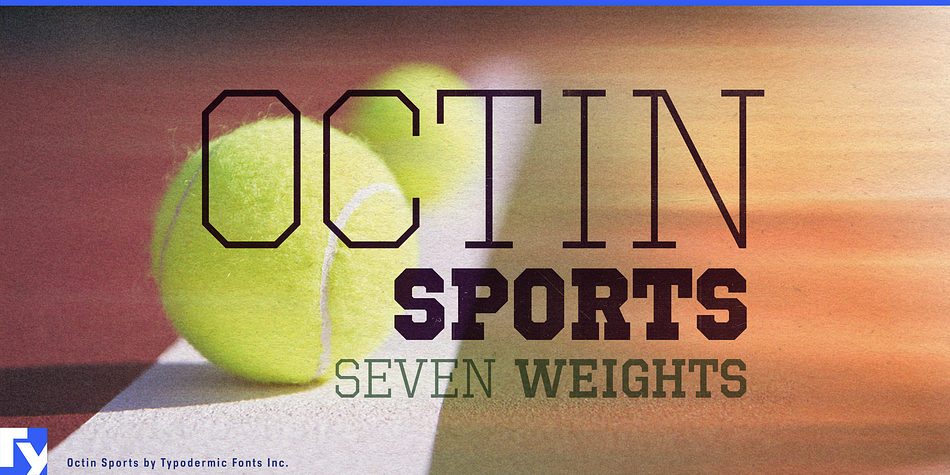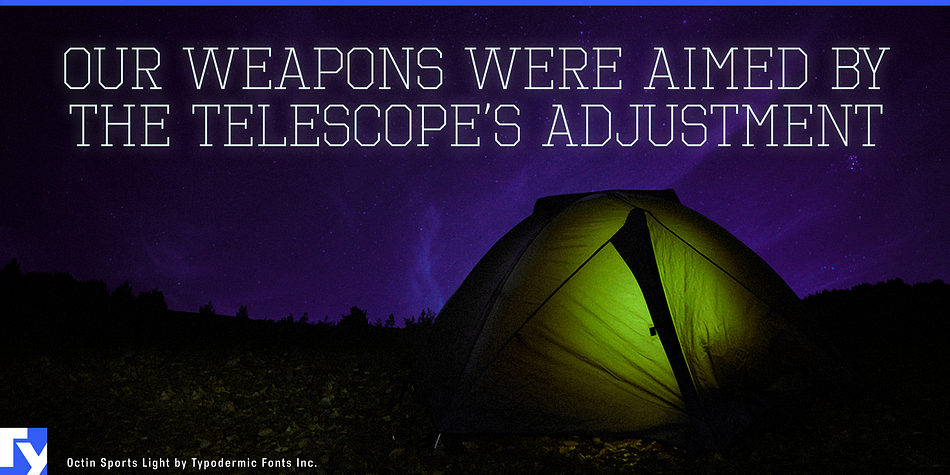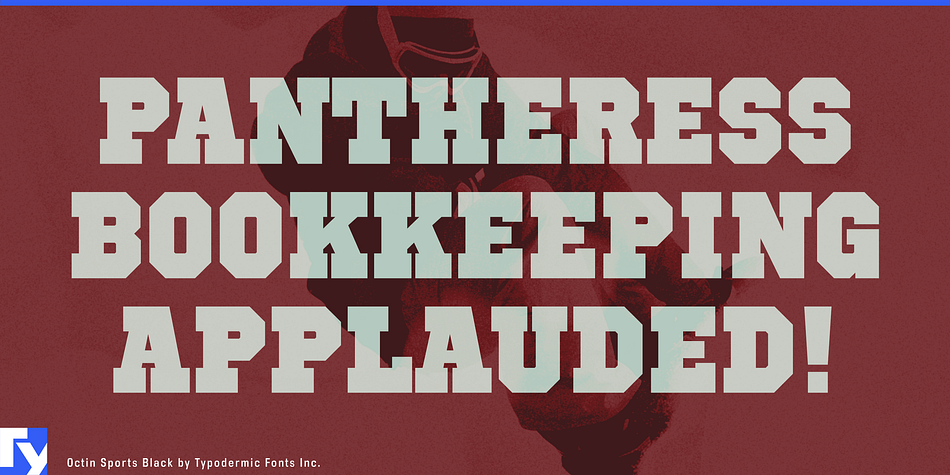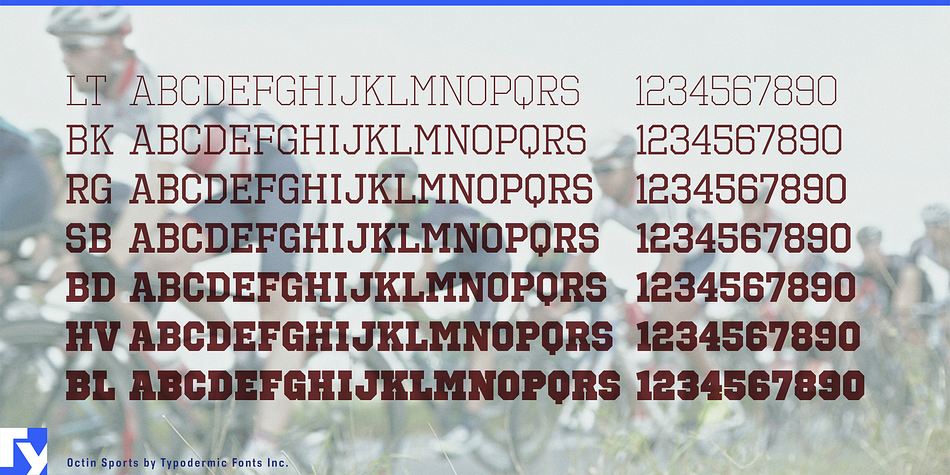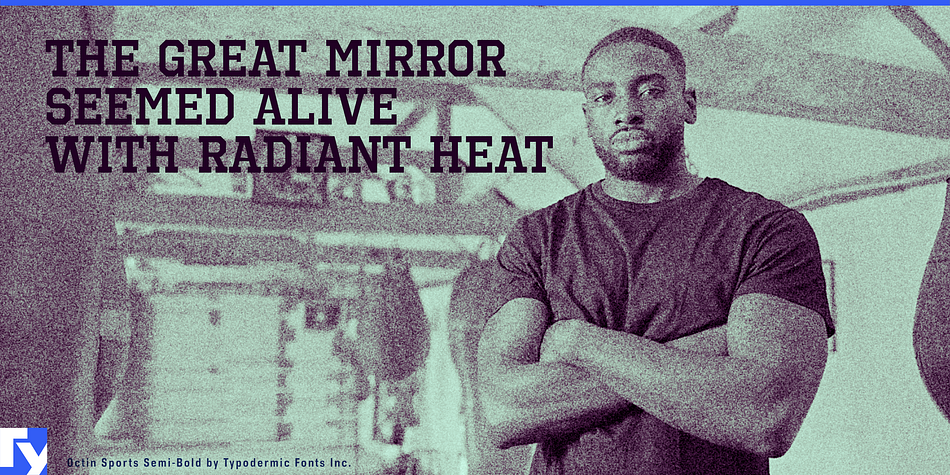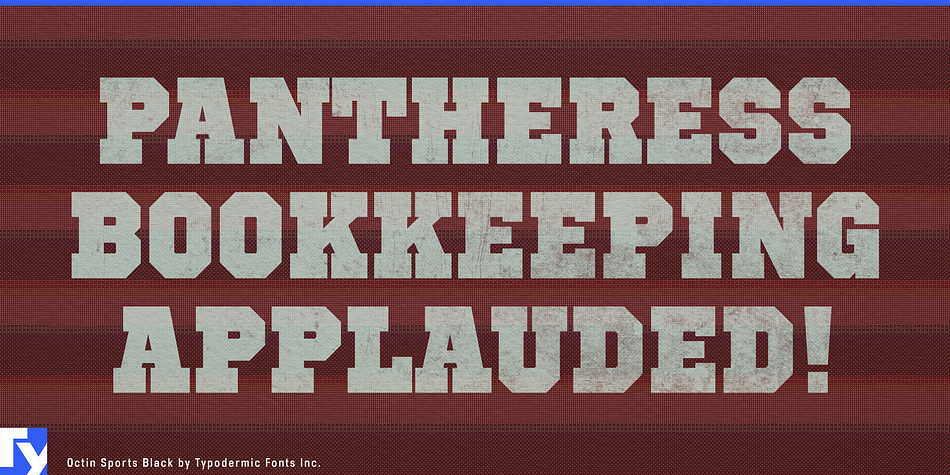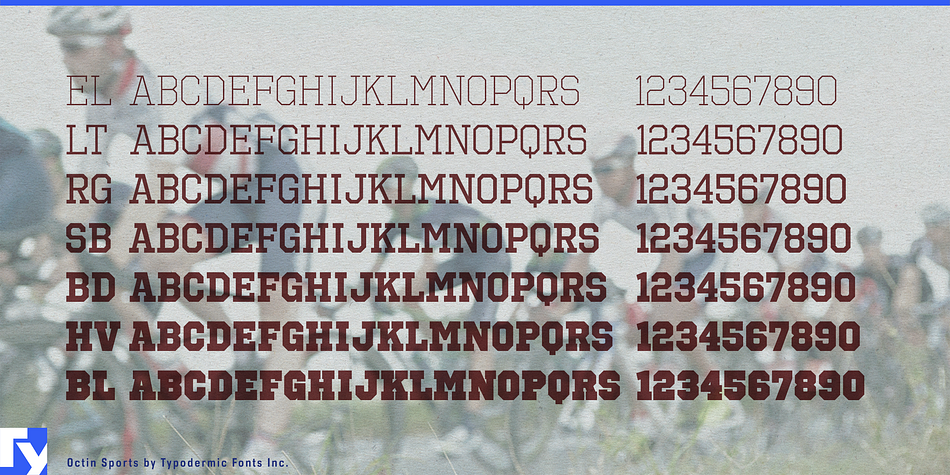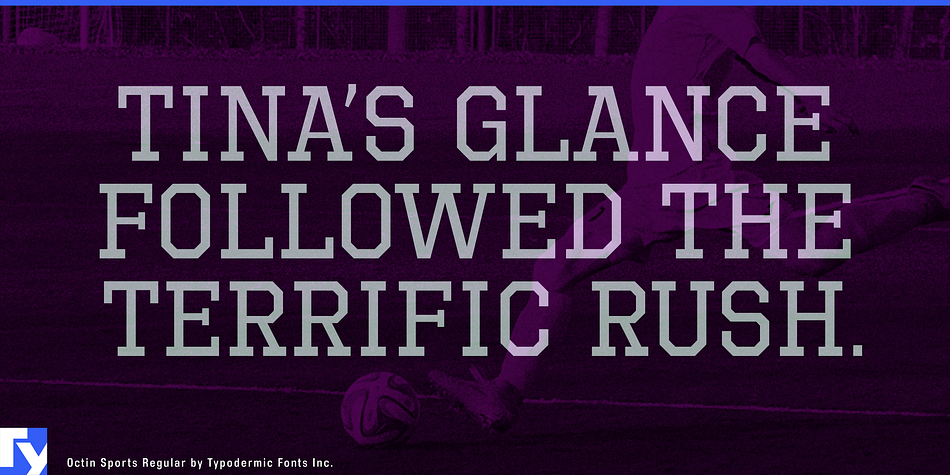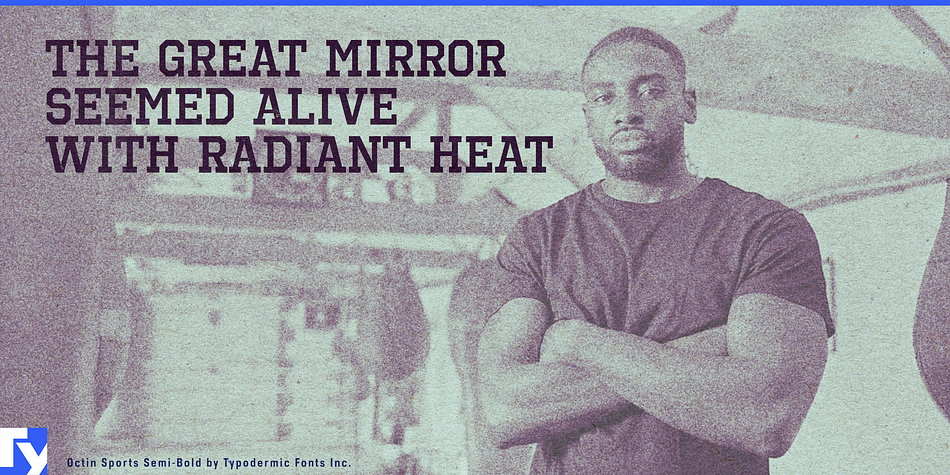
Octin Sports is a display slab font family. This typeface has seven styles and was published by Typodermic Fonts Inc.
Octin Sports is a tough headliner in 7 weights: light, book, regular, semi-bold, heavy & black. Octin Sports isn’t just for sports; it’s also great for school, construction, prison, police or military themes. Check out the rest of the Octin families: Octin College, Octin Prison, Octin Stencil, Octin Vintage & Octin Spraypaint. Most Latin-based European writing systems are supported, including the following languages. Afaan Oromo, Afar, Afrikaans, Albanian, Alsatian, Aromanian, Aymara, Bashkir (Latin), Basque, Belarusian (Latin), Bemba, Bikol, Bosnian, Breton, Cape Verdean, Creole, Catalan, Cebuano, Chamorro, Chavacano, Chichewa, Crimean Tatar (Latin), Croatian, Czech, Danish, Dawan, Dholuo, Dutch, English, Estonian, Faroese, Fijian, Filipino, Finnish, French, Frisian, Friulian, Gagauz (Latin), Galician, Ganda, Genoese, German, Greenlandic, Guadeloupean Creole, Haitian Creole, Hawaiian, Hiligaynon, Hungarian, Icelandic, Ilocano, Indonesian, Irish, Italian, Jamaican, Kaqchikel, Karakalpak (Latin), Kashubian, Kikongo, Kinyarwanda, Kirundi, Kurdish (Latin), Latvian, Lithuanian, Lombard, Low Saxon, Luxembourgish, Maasai, Makhuwa, Malay, Maltese, Māori, Moldovan, Montenegrin, Ndebele, Neapolitan, Norwegian, Novial, Occitan, Ossetian (Latin), Papiamento, Piedmontese, Polish, Portuguese, Quechua, Rarotongan, Romanian, Romansh, Sami, Sango, Saramaccan, Sardinian, Scottish Gaelic, Serbian (Latin), Shona, Sicilian, Silesian, Slovak, Slovenian, Somali, Sorbian, Sotho, Spanish, Swahili, Swazi, Swedish, Tagalog, Tahitian, Tetum, Tongan, Tshiluba, Tsonga, Tswana, Tumbuka, Turkish, Turkmen (Latin), Tuvaluan, Uzbek (Latin), Venetian, Vepsian, Võro, Walloon, Waray-Waray, Wayuu, Welsh, Wolof, Xhosa, Yapese, Zapotec Zulu and Zuni.